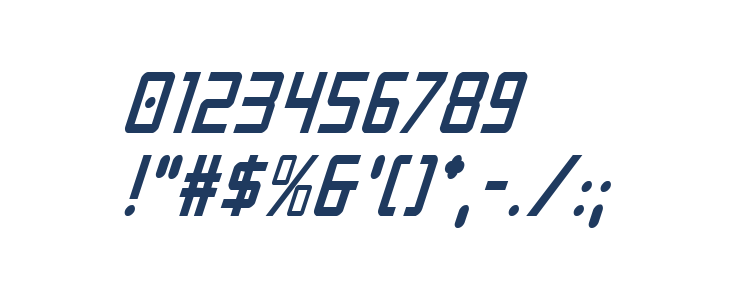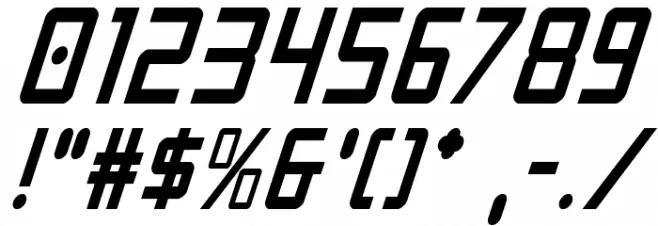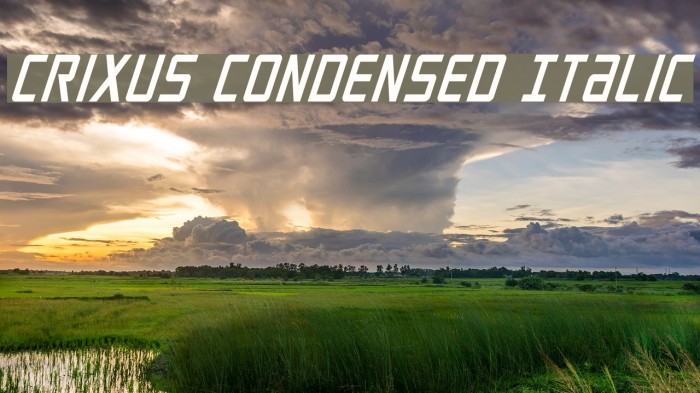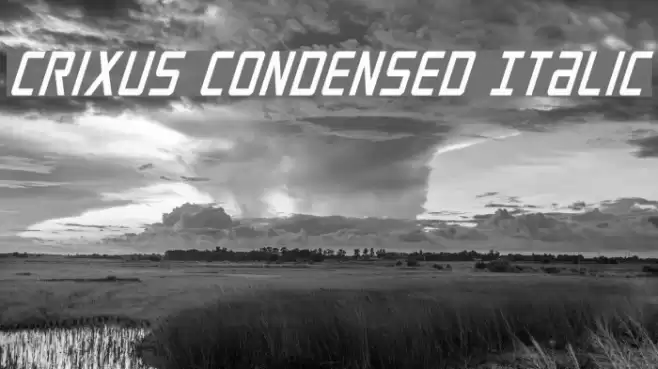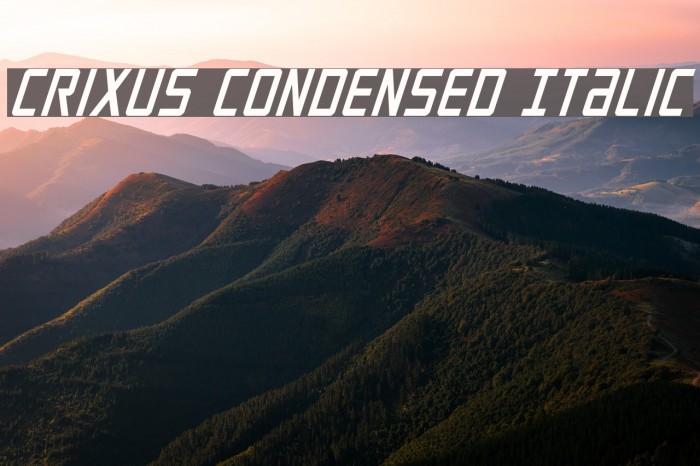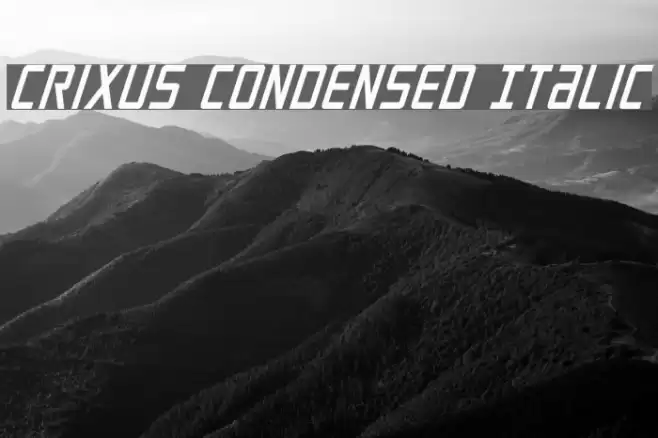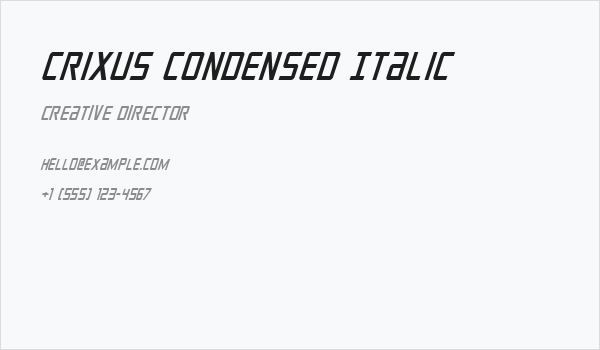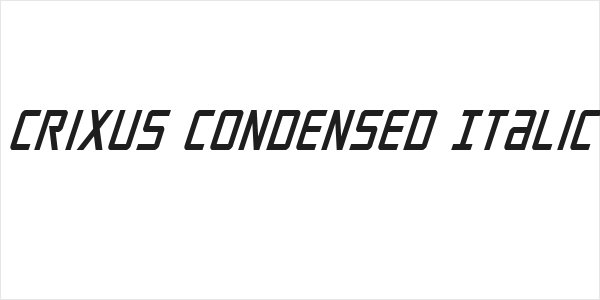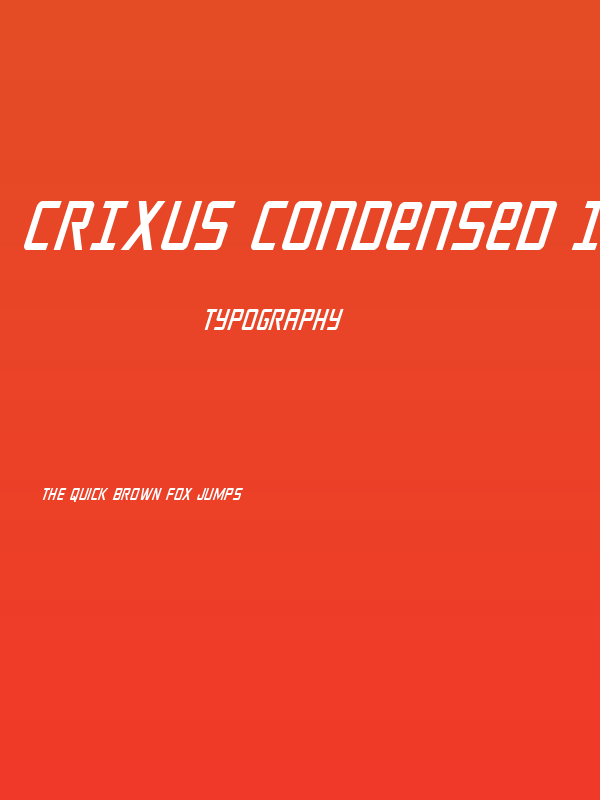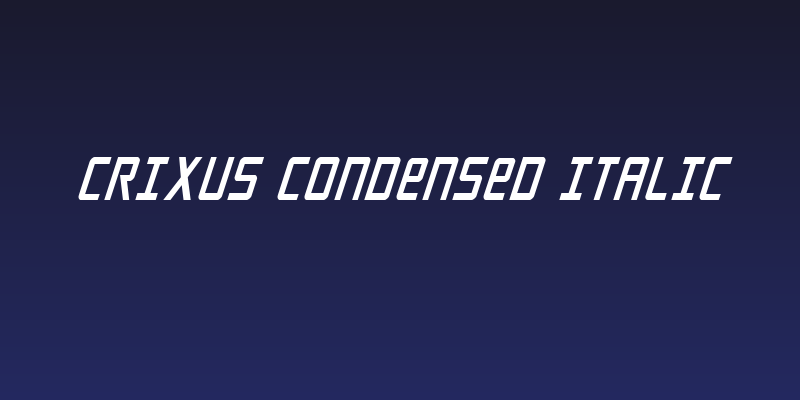
Crixus Condensed Italic Font
Crixus Condensed Italic Description
This font features a modern, angular design with a condensed and italicized style. The characters are sharply defined with a consistent slant, giving a sense of motion and dynamism. The uppercase and lowercase letters maintain a uniform height, contributing to a streamlined appearance. The numerals are distinct and align well with the overall geometric theme. Special characters are crafted with the same attention to angularity and precision, ensuring they integrate seamlessly with the alphabetic characters. This font's condensed nature makes it suitable for space-saving applications while maintaining readability.
| Proposed Projects | Ideal for branding, sports team logos, dynamic posters, and modern web design. |